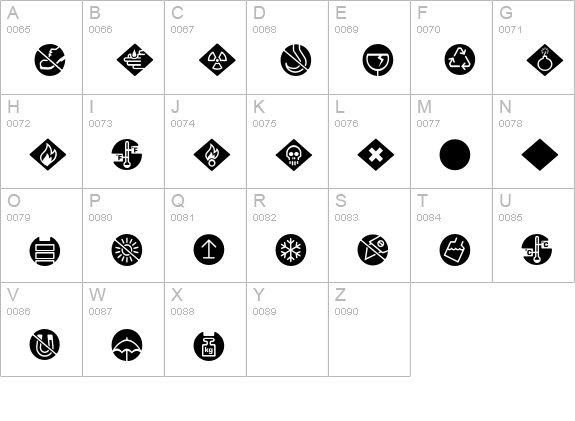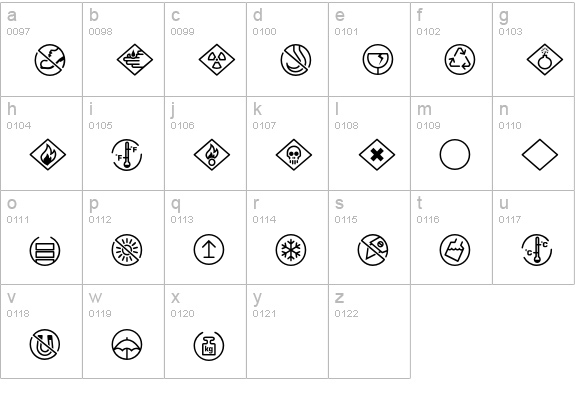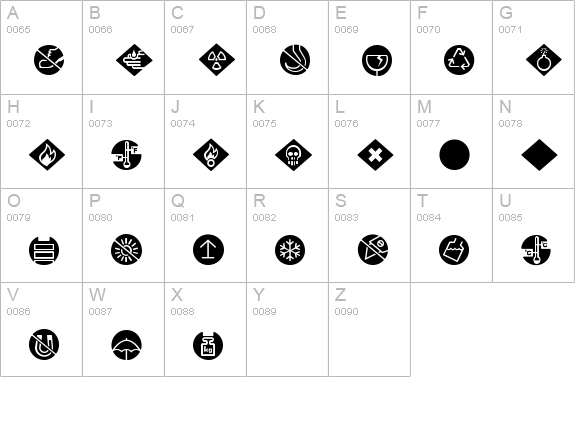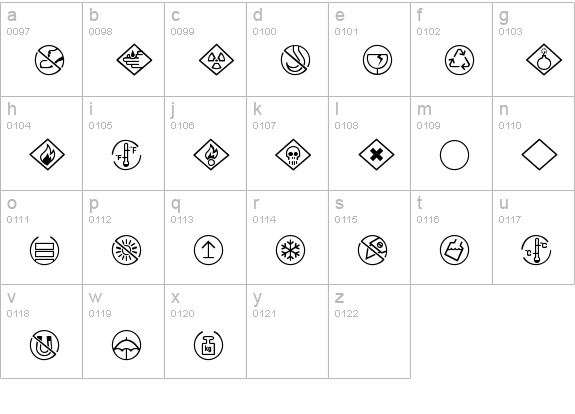
CarePack Font Details
CarePack is a versatile and modern font that exudes a sense of warmth and care. With its clean lines and friendly appearance, this font is perfect for a wide range of design projects, from invitations and greeting cards to branding and packaging. CarePack is designed to bring a touch of comfort and familiarity to any project, making it a great choice for conveying a sense of trust and reliability. The best part? CarePack is available for free download at FontsMarket.com, making it easily accessible for designers looking to add a touch of warmth to their work. Whether you're working on a personal project or a client commission, CarePack is sure to bring a sense of care and attention to detail that will make your designs stand out. Download CarePack today and start adding a touch of warmth to your projects.